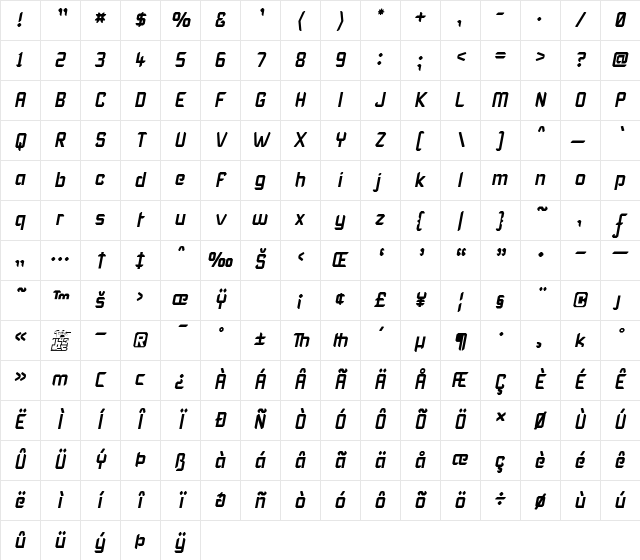
Karisma Italic
Designer: Graham Meade
Complete Karisma Italic glyph index. Displaying only characters natively supported by Karisma Italic font.
Design Context for Karisma
Karisma is a composed and adaptable typeface that performs quietly and consistently across a wide range of design contexts. The slanted form adds forward momentum and visual energy.
Pro Tip: Use Karisma for emphasis, pull quotes, and subheadings where its slanted energy can add rhythm to the layout.